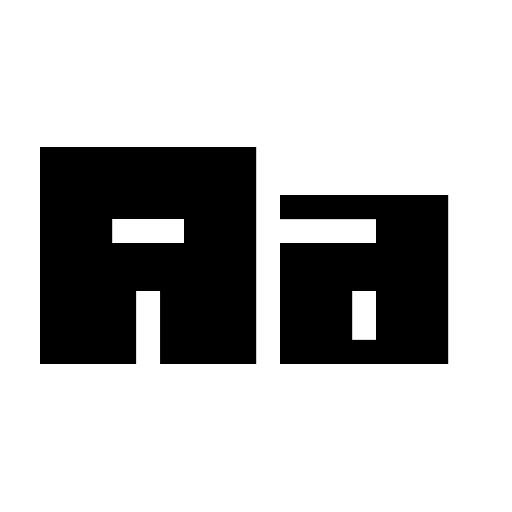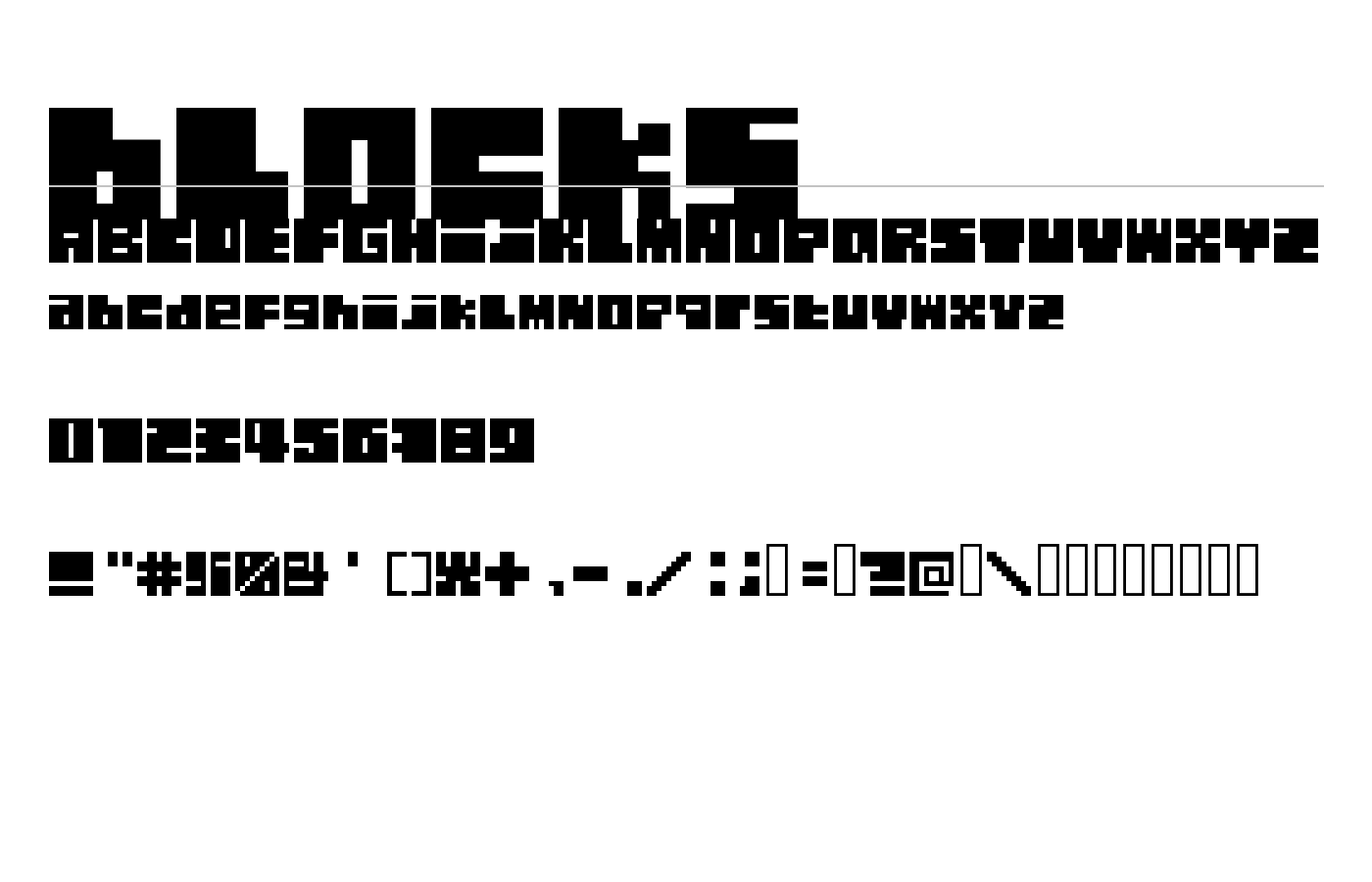
Blocks Font is a bold, geometric sans serif typeface characterized by its chunky, square-shaped letterforms that create a strong, digital or pixelated aesthetic. With its heavy weight, uniform width, and blocky design, it evokes a modern, techy, and playful vibe ideal for eye-catching headlines, logos, or digital-themed projects. This font works best where a striking, unconventional style is needed, especially in gaming, technology, or urban design contexts.
blocks Font
About blocks Font